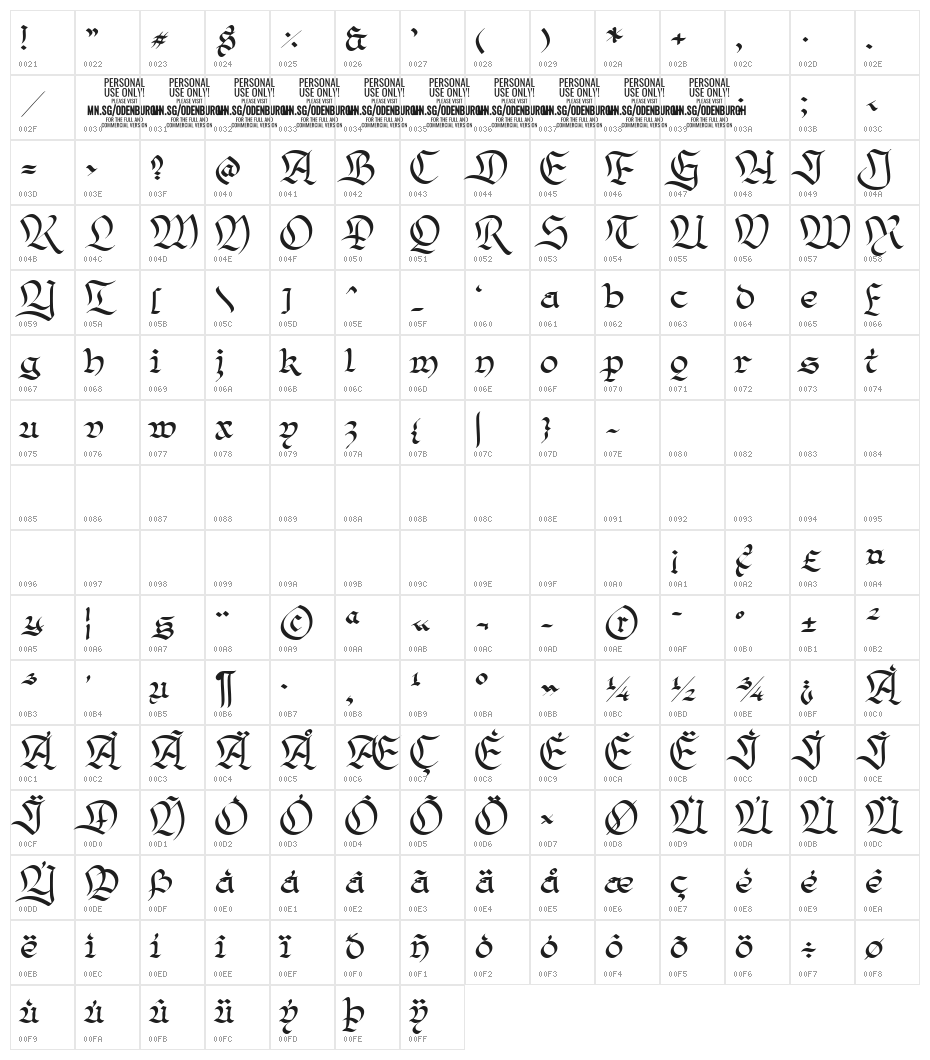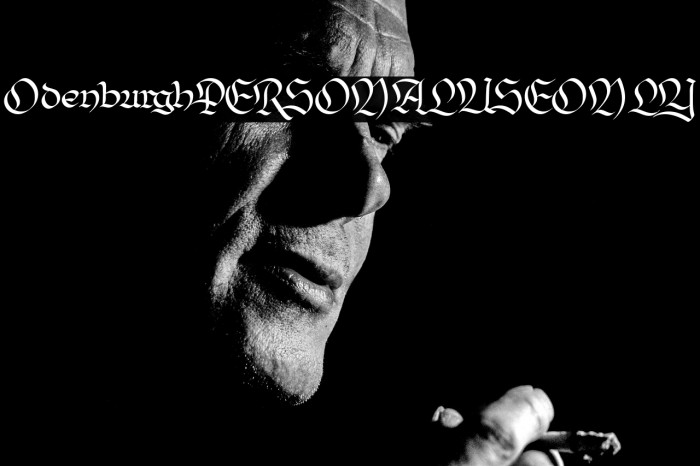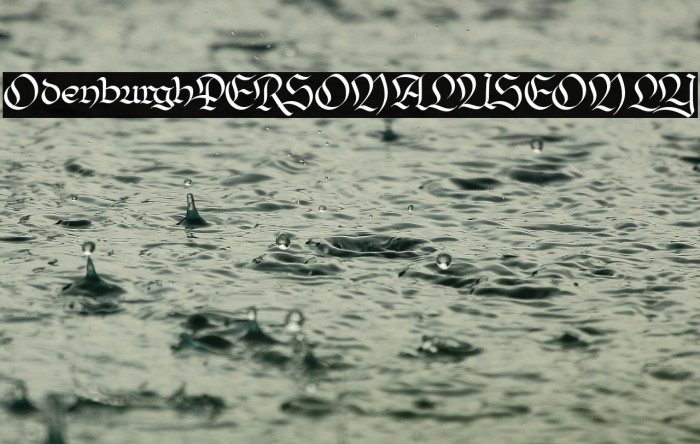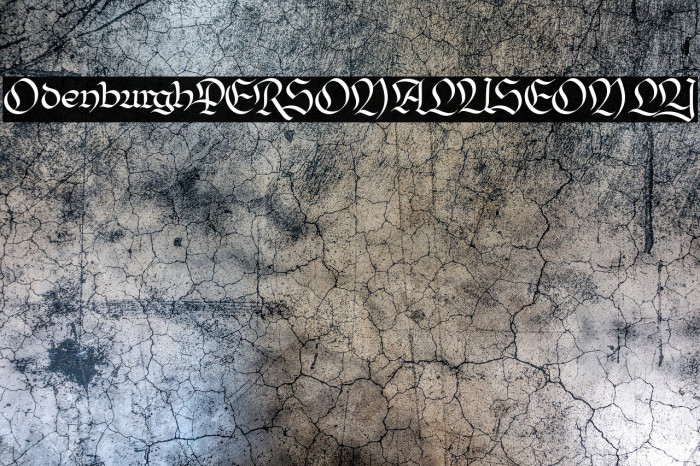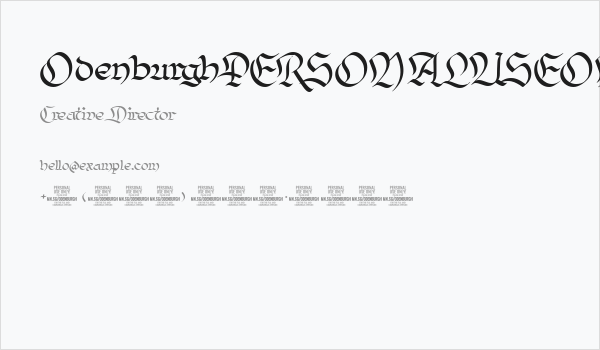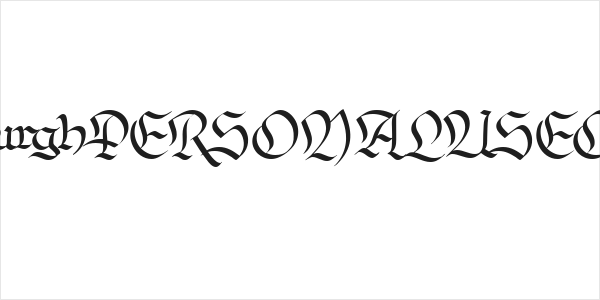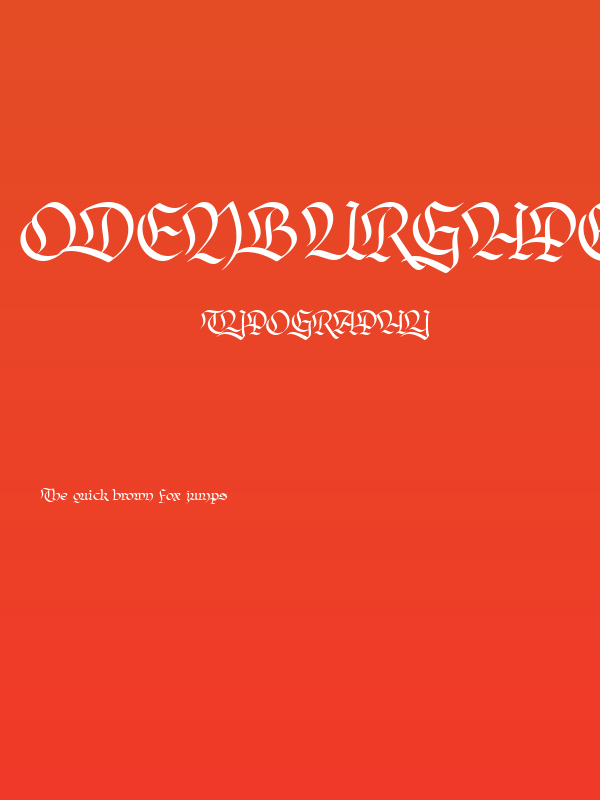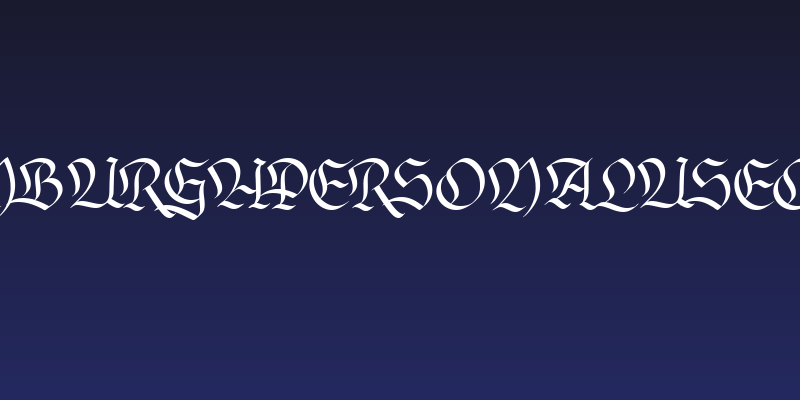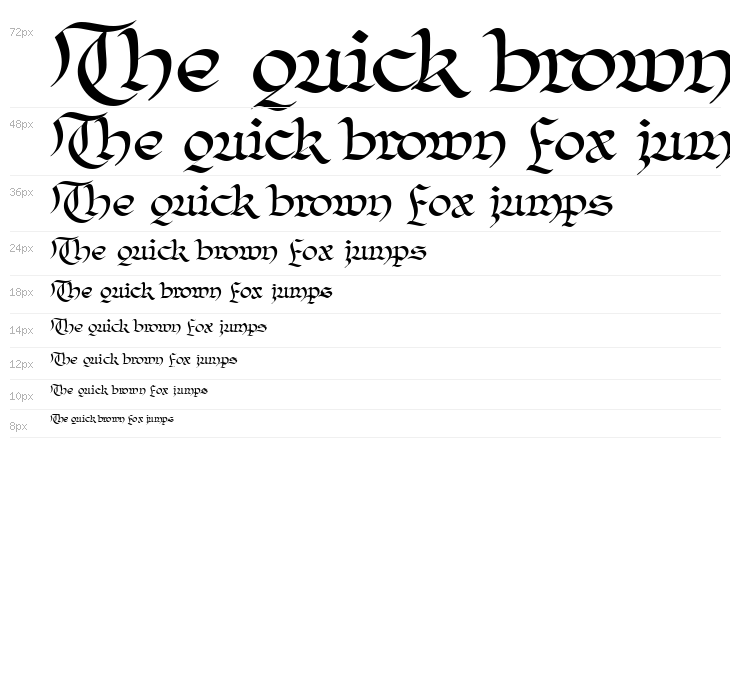
OdenburghPERSONALUSEONLY Font
OdenburghPERSONALUSEONLY Description
This font exhibits a classic blackletter style, characterized by its intricate and ornate letterforms. The uppercase letters are bold and dramatic, with sharp angles and pointed serifs that give them a gothic appearance. The lowercase letters maintain this theme, with flowing curves and elaborate strokes that enhance the medieval aesthetic. The numerals and special characters are consistent with the overall design, featuring similar decorative elements. This font is visually striking and commands attention, making it suitable for projects that require a historical or traditional feel.